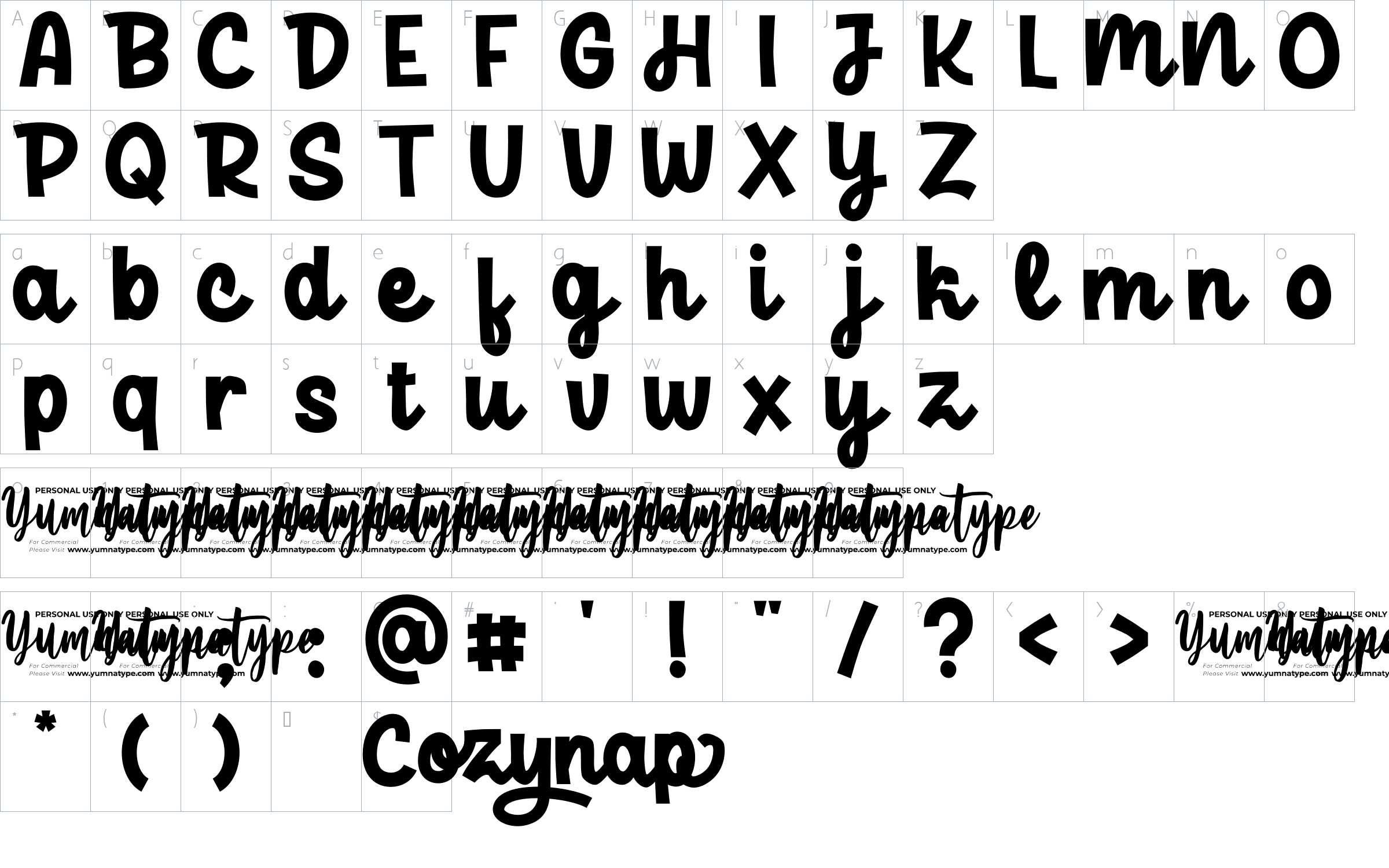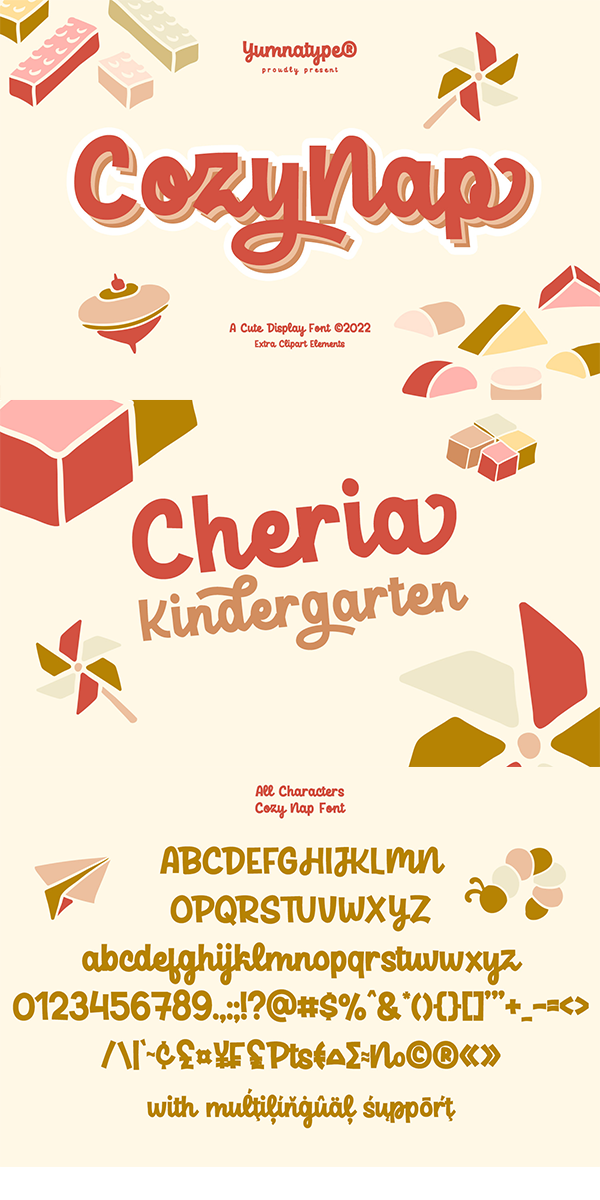
Cozy Nap Font
About Cozy Nap
Cozy nap is a cute display font. The dramatic bold and heavy styles works well in header or title text. While it’s easy to read, there are also a little bit curvy characters to add cute vibes. This font becomes more special with illustrations as the extras.
-Uppercase and lowercase
This font would looks great on your branding, logos, social media quotes, stickers, posters, wall art, merchandise, social media, and many more. Get more inspiration about how to use it by seeing the font preview.